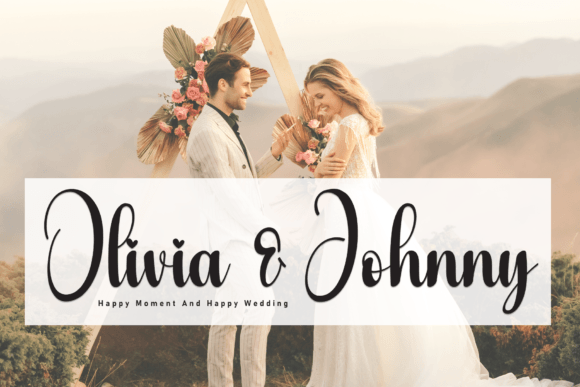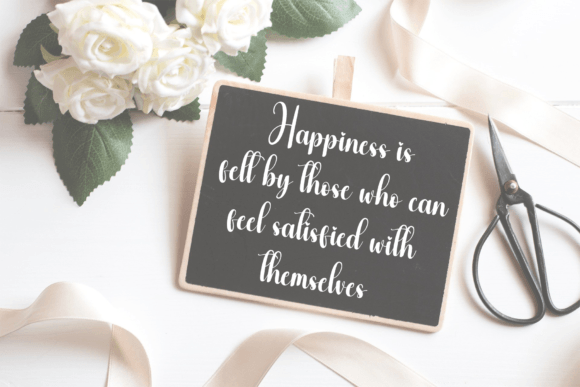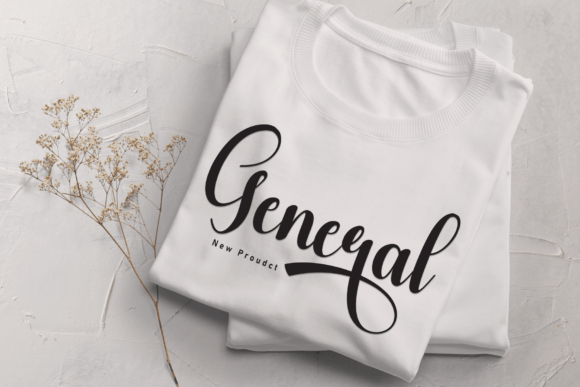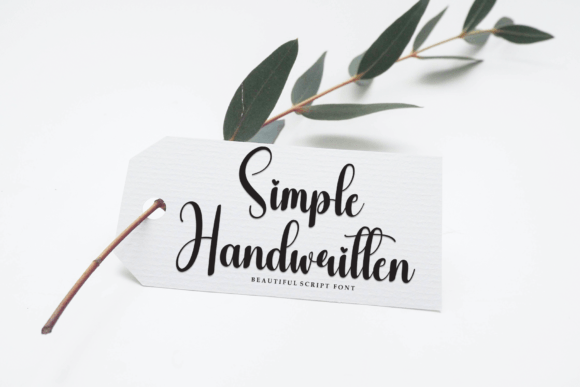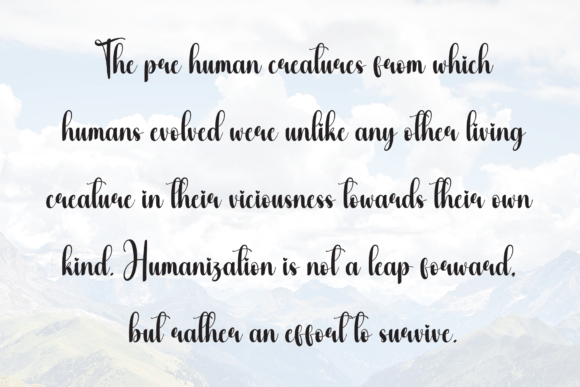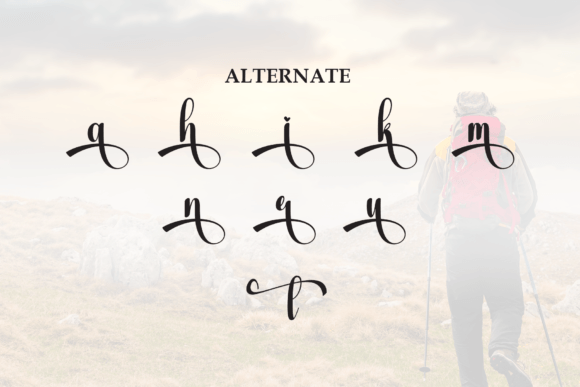
Discover the Charm of Adventener Font: Elevate Your Designs with a Timeless Handwritten Style
Are you on the hunt for a font that adds a personal touch to your designs? Look no further than Adventener Font, a lovely and timeless handwritten font that is sure to capture the hearts of designers and crafters alike. With its unique and beautiful touch, Adventener is the perfect choice for creating eye-catching logos, branding, and quotes that stand out from the crowd.
The Unique Charm of Adventener Font
What sets Adventener apart from other fonts is its distinctive handwritten style, which exudes warmth and personality. Every letter has been carefully crafted to have a unique touch, making each one a work of art in its own right. Whether you’re looking to create a logo, branding materials, or social media graphics, Adventener Font is sure to bring your designs to life.
Why Choose Adventener Font?
So, why should you choose Adventener Font for your next design project? Here are just a few reasons why this font stands out:
- Timeless appeal: Unlike trendy fonts that quickly go out of style, Adventener Font has a timeless quality that ensures your designs will remain stylish for years to come.
- Versatility: Whether you’re designing a logo, brochure, or social media graphic, Adventener Font is versatile enough to adapt to any style or format.
- Emotional connection: The handwritten nature of Adventener Font creates an emotional connection with your audience, making your designs more relatable and engaging.
- Ease of use: Adventener Font is easy to read and use, making it perfect for body text, headings, and titles.
Adventener Font is a dream come true for designers and crafters who want to add a personal touch to their work. Whether you’re creating:
- Logos and branding materials: Use Adventener Font to create a unique and memorable brand identity that stands out from the competition.
- Social media graphics: Add a touch of personality to your social media posts and stories with Adventener Font.
- Invitations and stationery: Create beautiful and elegant invitations, cards, and stationery with Adventener Font.
- DIY projects: Use Adventener Font to add a personal touch to your DIY projects, such as crafts, scrapbooking, and woodworking.
Tips for Using Adventener Font
To get the most out of Adventener Font, here are a few tips to keep in mind:
- Experiment with sizes and colors: Play around with different font sizes and colors to create visual interest and hierarchy in your designs.
- Mix and match with other fonts: Combine Adventener Font with other fonts to create a unique and stylish typography.
- Use it for headlines and titles: Take advantage of Adventener Font’s eye-catching style by using it for headlines and titles.
In conclusion, Adventener Font is a beautiful and timeless handwritten font that is sure to elevate your designs to the next level. With its unique and beautiful touch, versatility, and emotional appeal, Adventener Font is the perfect choice for designers and crafters who want to add a personal touch to their work. So why wait? Discover the charm of Adventener Font today and start creating stunning designs that capture the hearts of your audience!